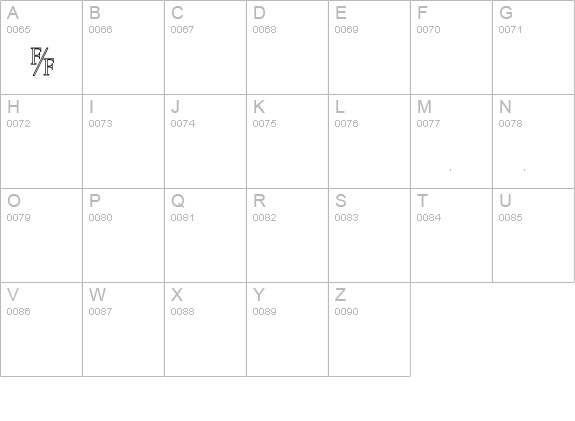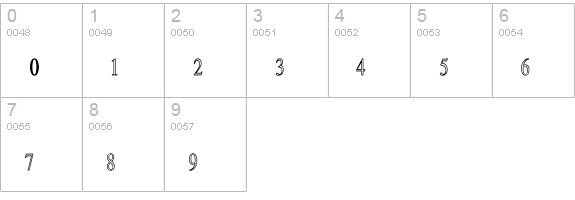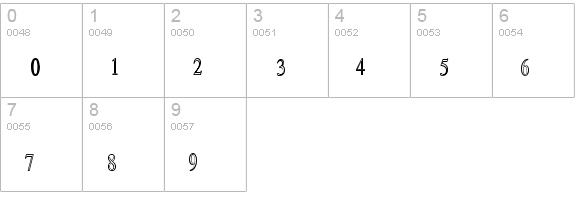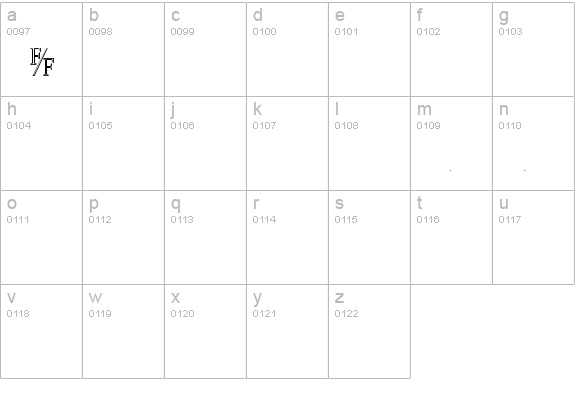
TmsFraction:b-NHC Font Details
TmsFraction:b-NHC font is a beautifully crafted typeface that adds an elegant touch to any design project. This font is perfect for creating fractions and mathematical equations, with its precise and well-balanced glyphs. With its clean and modern design, TmsFraction:b-NHC font is versatile and can be used in a variety of settings, from academic papers and textbooks to creative designs and presentations. It is designed to enhance readability and ensure that your content is easily understood. One of the standout features of this font is that it is freely available to download at FontsMarket.com. This means that you can easily access and use TmsFraction:b-NHC font in your projects without any additional cost. Whether you are a student, a teacher, or a professional designer, this font is accessible to everyone. The TmsFraction:b-NHC font is available in various styles and weights, allowing you to choose the perfect fit for your specific project. Its legibility and precision make it a popular choice among professionals and enthusiasts alike. In conclusion, TmsFraction:b-NHC font is a must-have for anyone looking to enhance their design projects with elegant and accurate fractions. Its free availability at FontsMarket.com makes it even more appealing, ensuring that you can access this high-quality font without any hassle. Download TmsFraction:b-NHC font today and elevate your designs to new heights.